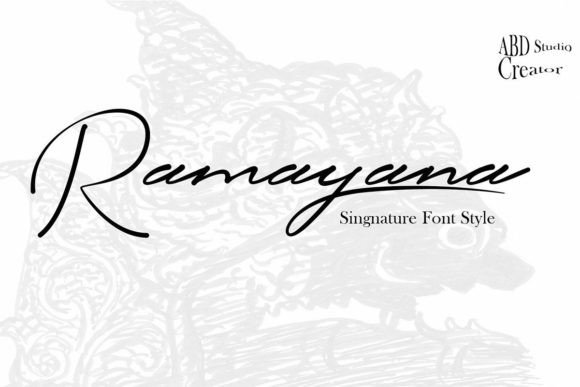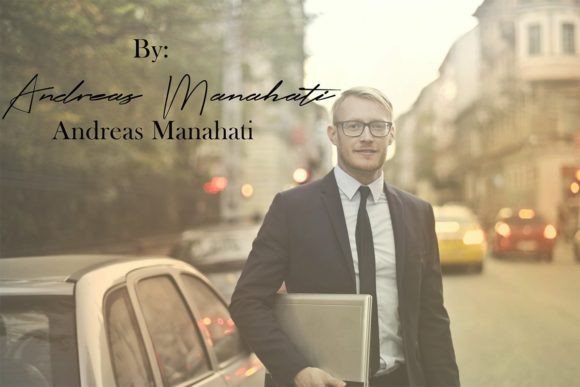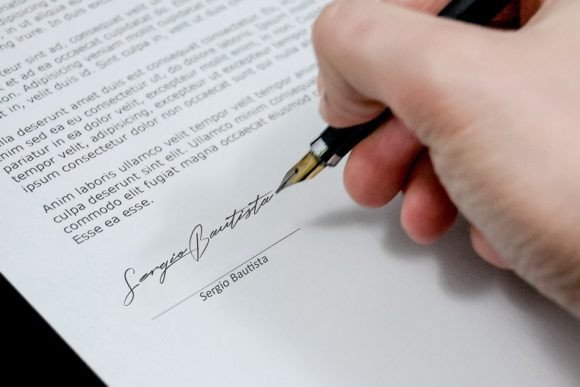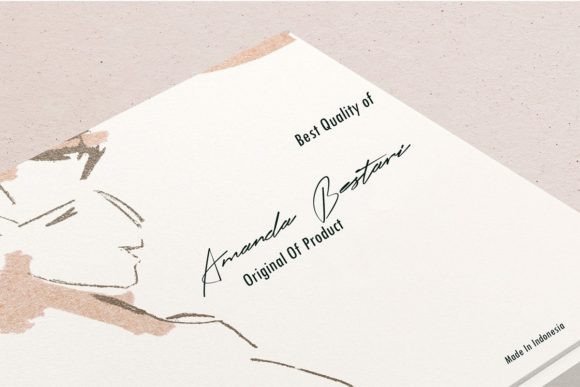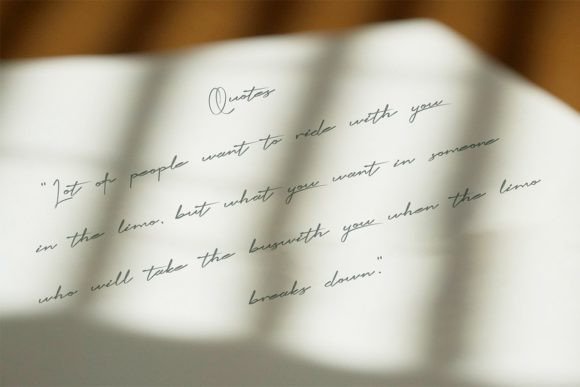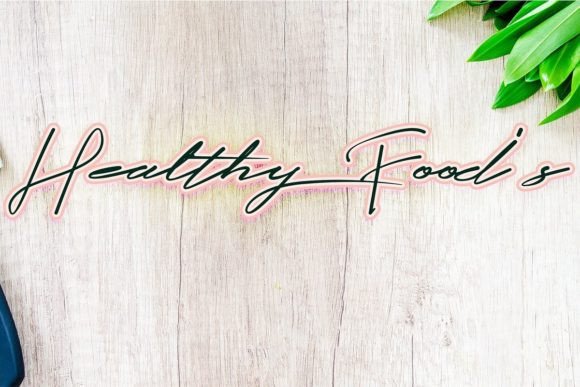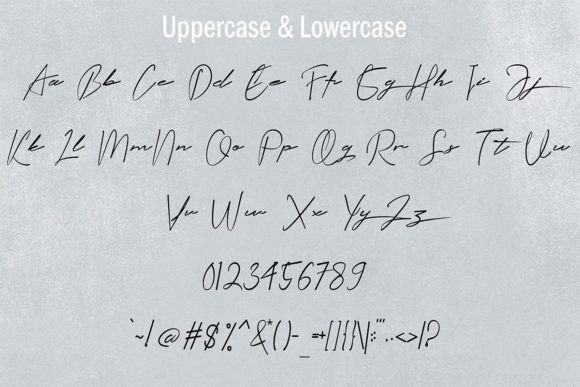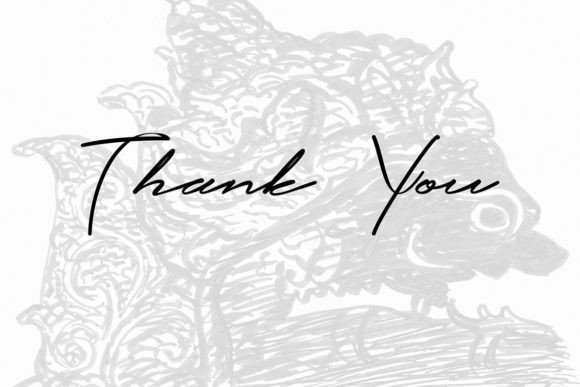
Ramayana Font
About Ramayana Font
“Ramayana is a font that effortlessly combines style, elegance, and friendliness. Its sleek design and handwritten charm make it a perfect choice for those seeking a beautiful and refreshing look in their designs. Crafted with precision, this font is tailored for individuals who crave an incredibly elegant and stylish touch to enhance their creative projects.
What sets Ramayana apart is its versatility. Its stylish and friendly characters lend themselves well to a variety of design purposes. Whether you’re creating branding materials, invitations, social media graphics, product packaging, or any other visual content, Ramayana adds a touch of sophistication and approachability. The font’s elegance and friendliness create a harmonious balance, making it suitable for both formal and casual applications.
One of the standout features of Ramayana is its PUA encoding. With this feature, you have seamless access to a wide array of amazing glyphs and ligatures. This accessibility allows you to customize your designs with unique characters and decorative elements effortlessly. Whether you’re enhancing your branding with custom logos or adding artistic flair to your typography, Ramayana’s PUA encoding simplifies the creative process, enabling you to achieve a polished and professional look.
Incorporating Ramayana into your designs is like adding a touch of refined charm. Its stylish, incredibly elegant, and friendly handwritten style elevates your creative projects, making them visually striking and memorable. Whether you’re a designer, entrepreneur, or enthusiast, Ramayana empowers you to infuse your designs with a distinctive and refreshing aesthetic.
Ramayana is more than just a font; it’s a source of creative inspiration. Its stylish elegance and friendly appeal make it an invaluable addition to any design toolkit. Embrace the beauty of Ramayana and let your imagination flourish, creating designs that are as elegant and charming as your vision allows.”